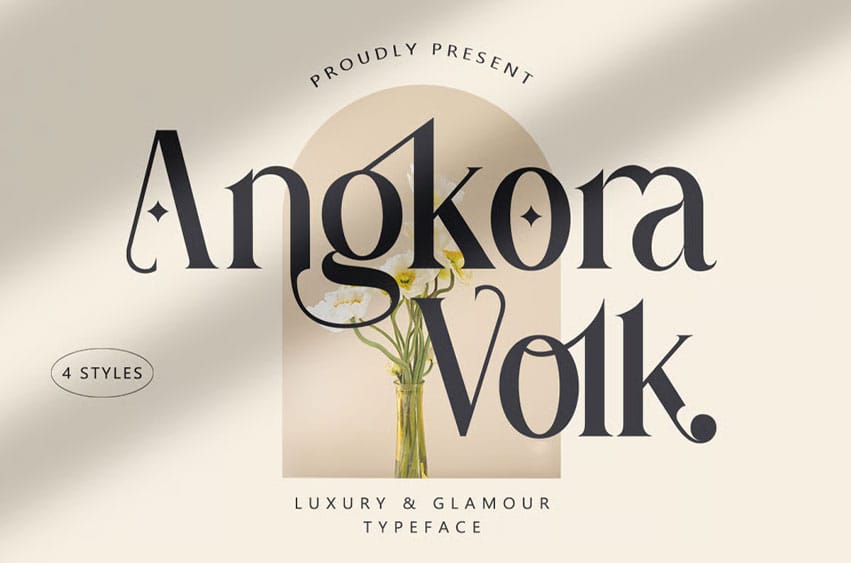
Angkora Volk Font is a New Modern Typeface. This other Serif collection is perfect for your next branding project, great for your business. Gallient has smooth edges, so this font gives the style an authentically handcrafted feel.
Angkora Volk is the perfect choice for people looking for a clean, modern, minimalist, elegant, and beautiful design style.
Suitable for almost any graphic design, such as logos, branding materials, business cards, gift cards, covers, thumbnails, prints, posters, photography, quotes, etc.